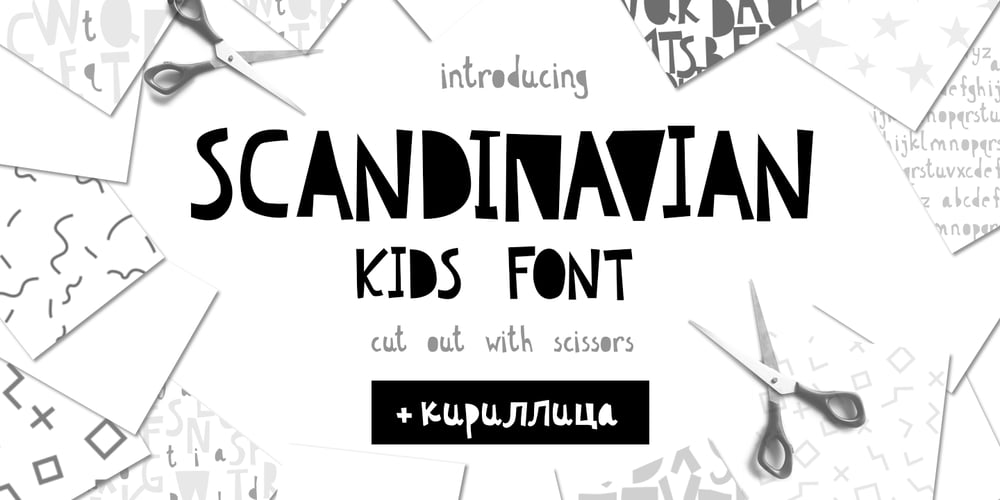
Scandinavian Cyrillic Font Family was designed by Iryna Dviliuk and published by Ira Dvilyuk. Scandinavian Cyrillic contains 1 styles and family package options. The Scandinavian Cyrillic kids font is stylish and laconic as famous Scandinavian monochrome design.Each letter of the font was carefully cut out of paper with scissors by little childish hands. And now it’s turned into a font :)The Scandinavian Cyrillic kids font includes main uppercase, alternative uppercase, and double letters for uppercase and lowercase. It will be perfect for use in all your fun design projects: logos, labels, packaging design, blog headlines. Also, it will look great on mugs, cards, kid’s books headlines, or other typographic projects.Multilingual Support for 32 languages: Latin glyphs for Afrikaans, Albanian, Basque, Bosnian, Catalan, Danish, Dutch, English, Estonian,Faroese, Filipino, Finnish, French, Galician, Indonesian, Irish, Italian, Malay, Norwegian Bokmål, Portuguese, Slovenian, Spanish,Swahili, Swedish, Turkish, Welsh, Zulu.And Cyrillic glyphs support for Russian, Belorussian, Bulgarian, Ukrainian and Kazakh languages. Works perfectly on the Canva platform.For Cricut & Silhouette recommended.